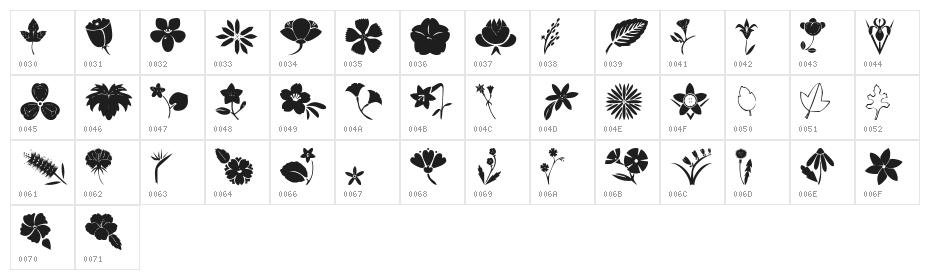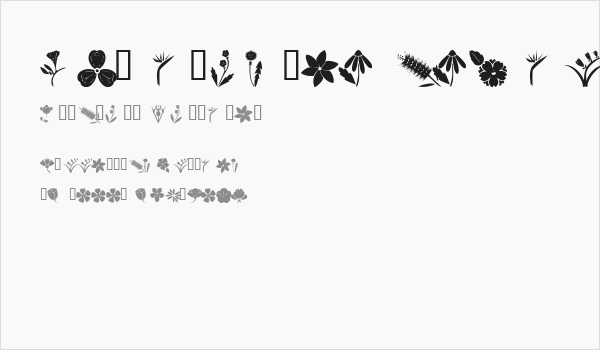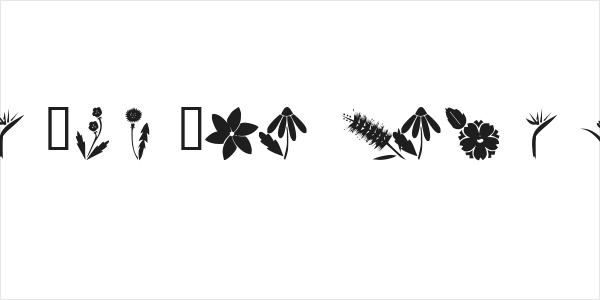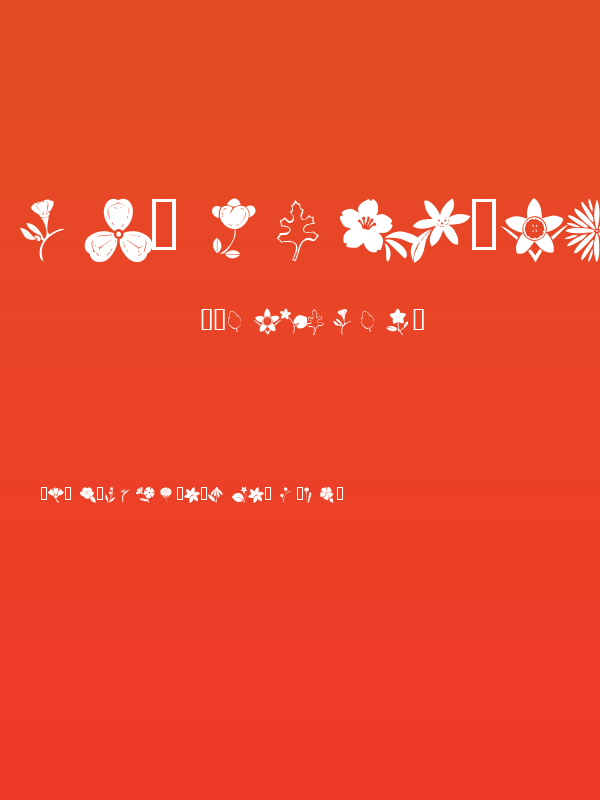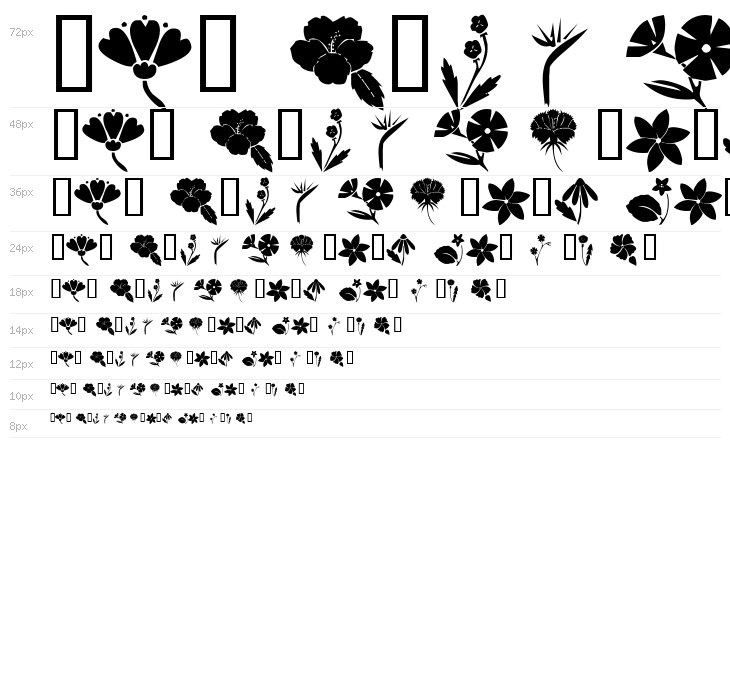
AEZ crimson and clover Font
AEZ crimson and clover Description
A decorative dingbat set featuring a variety of stylized floral and leaf silhouettes, ranging from simple outlines to bold, filled shapes. The glyphs include flowers, leaves, and botanical motifs, each with unique forms and levels of detail, suitable for ornamental use.
| Overall Style | Decorative, Botanical |
| Use Case | Ornamental graphics, embellishments, icons, borders. |
| Proposed Projects | Greeting cards, invitations, scrapbooking, decorative borders, digital stickers, botanical-themed branding. |